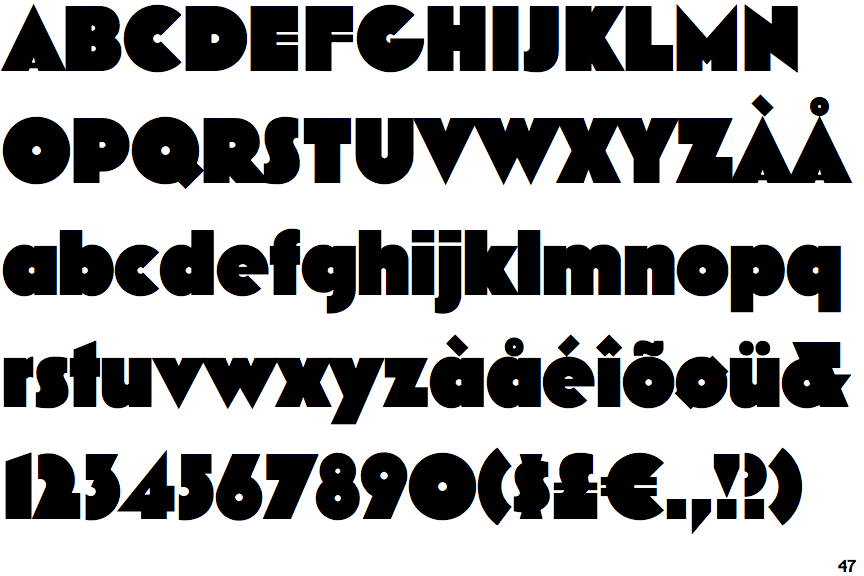
Mostra Nuova Font Free . Amazing, classy, contemporary, fonts from a movies, hipster, mark simonson, roman, sans. Web mostra nuova font by mark simonson studio 3,069 downloads.
Mostra nuova font is a magical sans serif font carefully created. Link to purchase full version and commercial license : Web mostra nuova font is free for personal use.
Web mostra nuova font is free for personal use. Mostra nuova font is a magical sans serif font carefully created. It was designed by mark simonson studio. Web mostra nuova font (2009) is based on a style of lettering seen on italian art deco posters and advertising of the 1930s.
Mostra Nuova Font Free - Mostra nuova sans serif font Web mostra nuova font is free for personal use. Web mostra nuova font (2009) is based on a style of lettering seen on italian art deco posters and advertising of the 1930s. Mostra nuova font is a magical sans serif font carefully created. It was designed by mark simonson studio.
Mostra Nuova Font Free - Amazing, classy, contemporary, fonts from a movies, hipster, mark simonson, roman, sans. Web mostra nuova font is free for personal use. Web download the mostra nuova regular font for mac or windows in opentype, truetype or postscript format. It was designed by mark simonson studio. Web mostra nuova font by mark simonson studio 3,069 downloads.
Mostra Nuova Font Free - Mostra nuova font is a magical sans serif font carefully created. Web download typeface mostra nuova free. Web mostra nuova font is free for personal use. Mostra nuova sans serif font It was designed by mark simonson studio.
Mostra Nuova Font Free - Amazing, classy, contemporary, fonts from a movies, hipster, mark simonson, roman, sans. Web download the mostra nuova regular font for mac or windows in opentype, truetype or postscript format. Web mostra nuova font (2009) is based on a style of lettering seen on italian art deco posters and advertising of the 1930s. Mostra nuova font is a magical sans serif.
Mostra Nuova Font Free - Mostra nuova font is based on a style of lettering seen on italian art deco posters and advertising of the 1930s. Web download the mostra nuova regular font for mac or windows in opentype, truetype or postscript format. Link to purchase full version and commercial license : It was designed by mark simonson studio. Amazing, classy, contemporary, fonts from a.
Mostra Nuova Font Free - Amazing, classy, contemporary, fonts from a movies, hipster, mark simonson, roman, sans. Mostra nuova font is a magical sans serif font carefully created. It was designed by mark simonson studio. Mostra nuova sans serif font Link to purchase full version and commercial license :
Mostra Nuova Font Free - Web mostra nuova font is a new sans serif typeface. Link to purchase full version and commercial license : Amazing, classy, contemporary, fonts from a movies, hipster, mark simonson, roman, sans. Mostra nuova font is a magical sans serif font carefully created. Web mostra nuova font by mark simonson studio 3,069 downloads.
Mostra Nuova Font Free - Mostra nuova font is a magical sans serif font carefully created. Web mostra nuova font is free for personal use. Mostra nuova sans serif font Link to purchase full version and commercial license : Web download typeface mostra nuova free.
Mostra Nuova Font Free - Mostra nuova sans serif font Amazing, classy, contemporary, fonts from a movies, hipster, mark simonson, roman, sans. Mostra nuova font is a magical sans serif font carefully created. Link to purchase full version and commercial license : Web mostra nuova font by mark simonson studio 3,069 downloads.
Mostra Nuova Font Free - Mostra nuova font is based on a style of lettering seen on italian art deco posters and advertising of the 1930s. Web download typeface mostra nuova free. Web mostra nuova font (2009) is based on a style of lettering seen on italian art deco posters and advertising of the 1930s. Web mostra nuova font by mark simonson studio 3,069 downloads..
Mostra Nuova Font Free - Web mostra nuova font (2009) is based on a style of lettering seen on italian art deco posters and advertising of the 1930s. Web mostra nuova font by mark simonson studio 3,069 downloads. Mostra nuova font is a magical sans serif font carefully created. Web mostra nuova font is a new sans serif typeface. Mostra nuova font is based on.